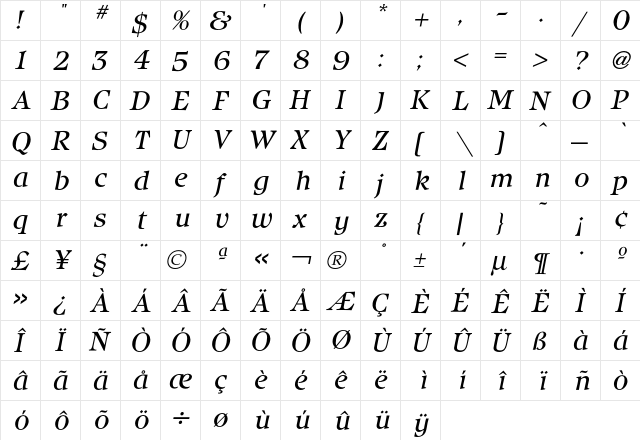
Isbell BookItalic
Design Context for Isbell Typeface
Isbell is a composed and adaptable typeface that performs quietly and consistently across a wide range of design contexts. Its italic angle brings a sense of urgency and motion to the letterforms.
Pro Tip: Try Isbell for annotation and caption copy alongside an upright companion — the contrast in angle creates a dynamic but ordered typographic system.